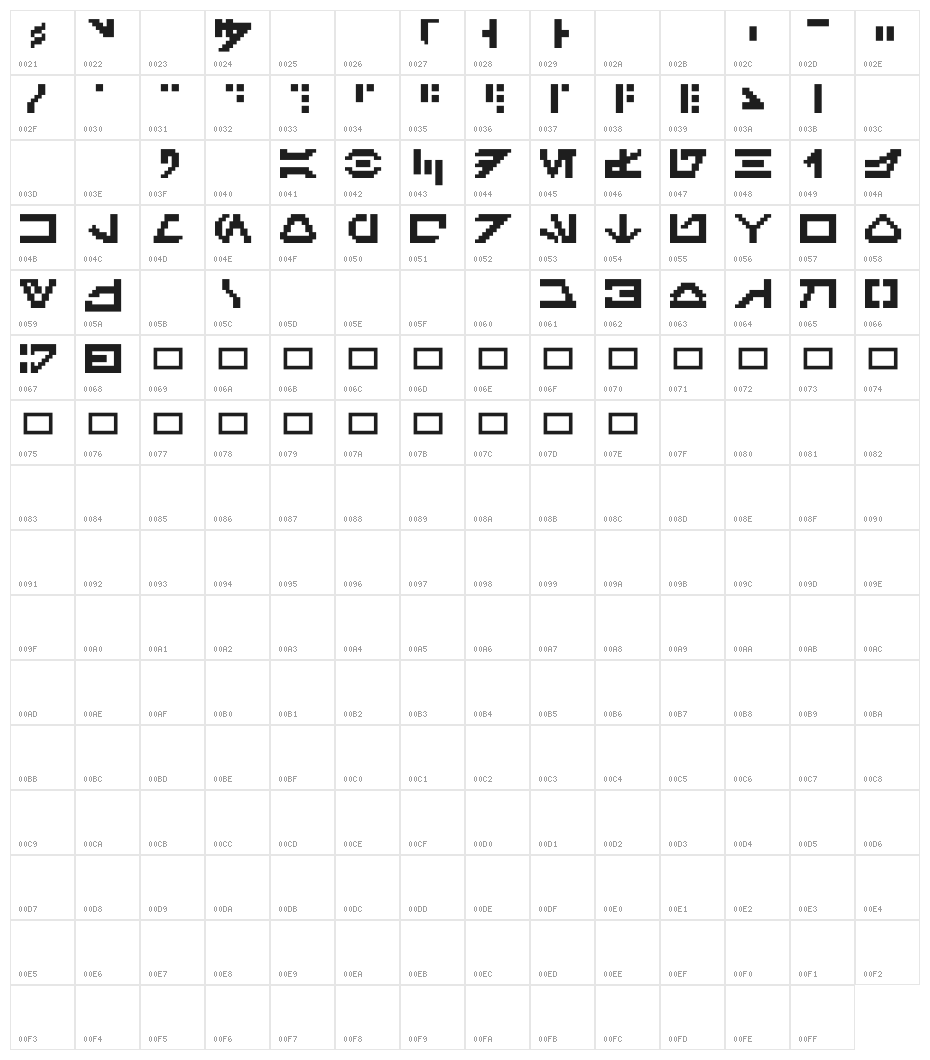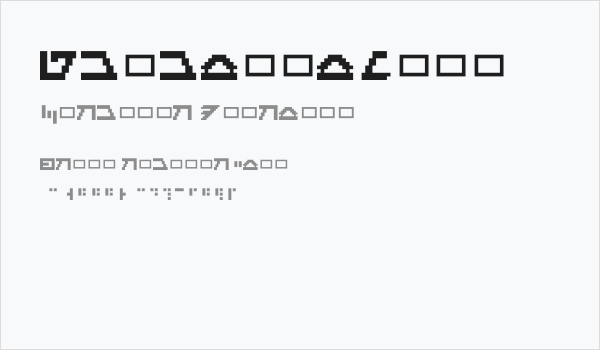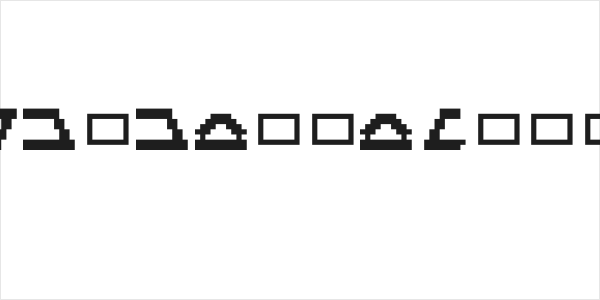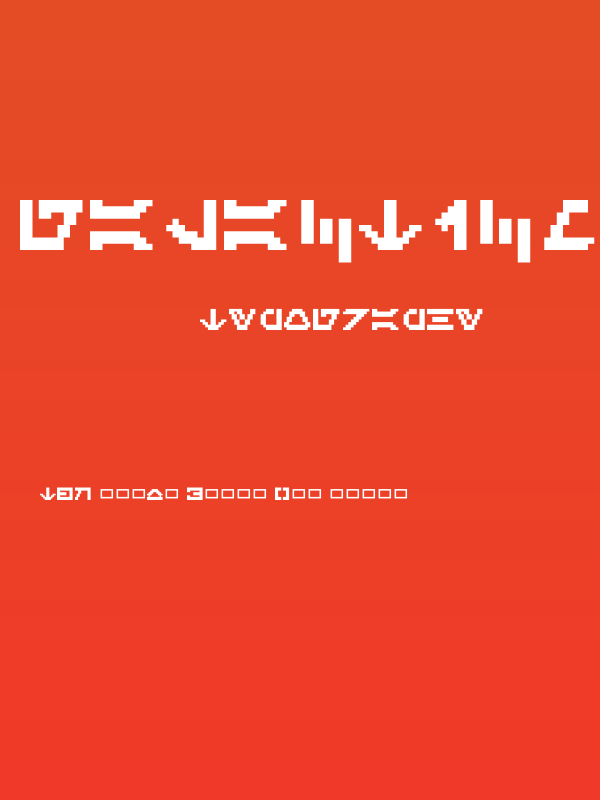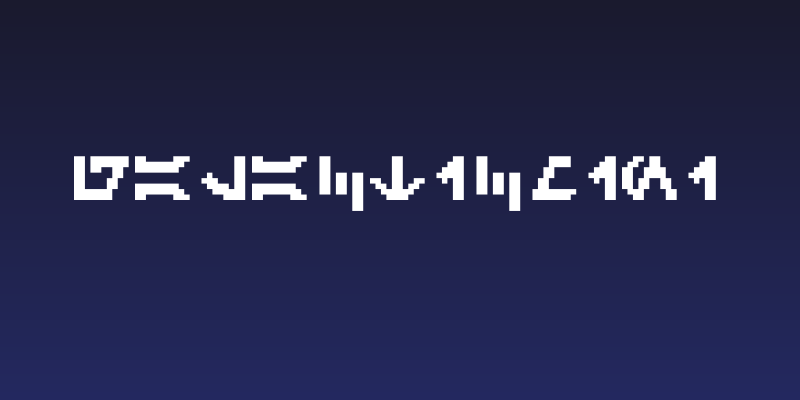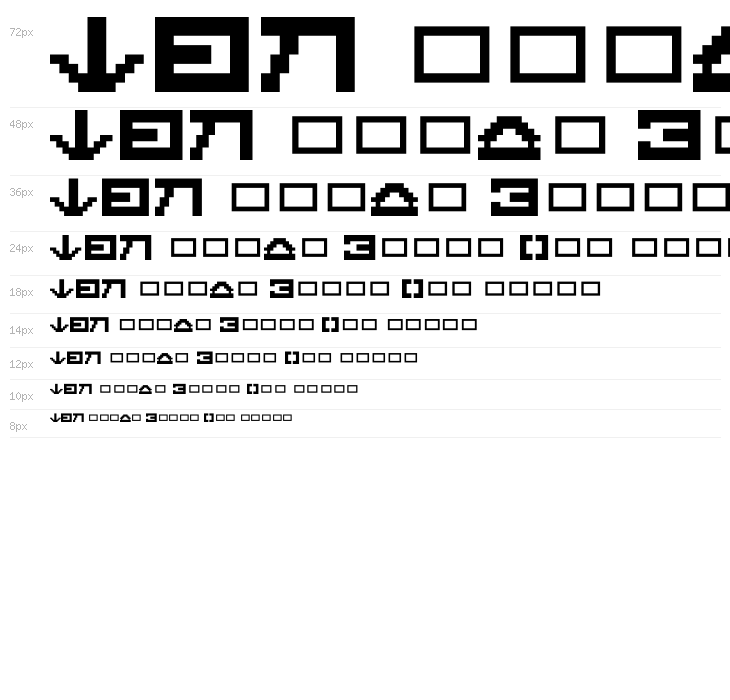
GalacticMini Font
GalacticMini Description
This font features a futuristic and pixelated design, reminiscent of classic arcade games and digital displays. Each character is composed of distinct blocks, creating a geometric and angular appearance. The style is highly decorative, with a strong emphasis on a digital or sci-fi aesthetic. The characters are uniform in height and width, contributing to a monospaced feel, although the spacing between them is relatively tight. This font is ideal for projects that require a retro or tech-inspired look, such as video game interfaces, digital art, or themed event posters.
| Overall Style | Futuristic, Digital |
| Proposed Projects | Video game interfaces, digital art, themed event posters, sci-fi book covers. |